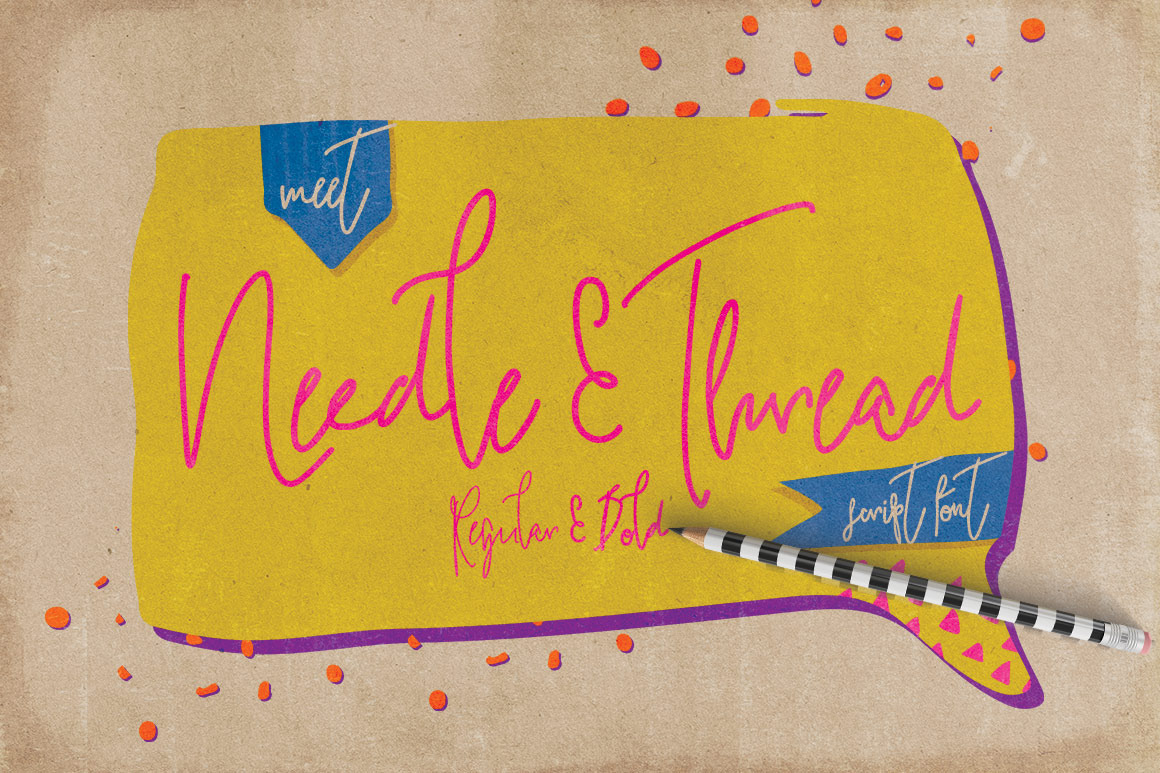
This is Needle & Thread - a brand new awesome font family. Hand drawn signature style script font with an all caps version (they are different to the caps in the Regular Font) and a bold version.
It also has loads of Standard ligatures for those double letters.